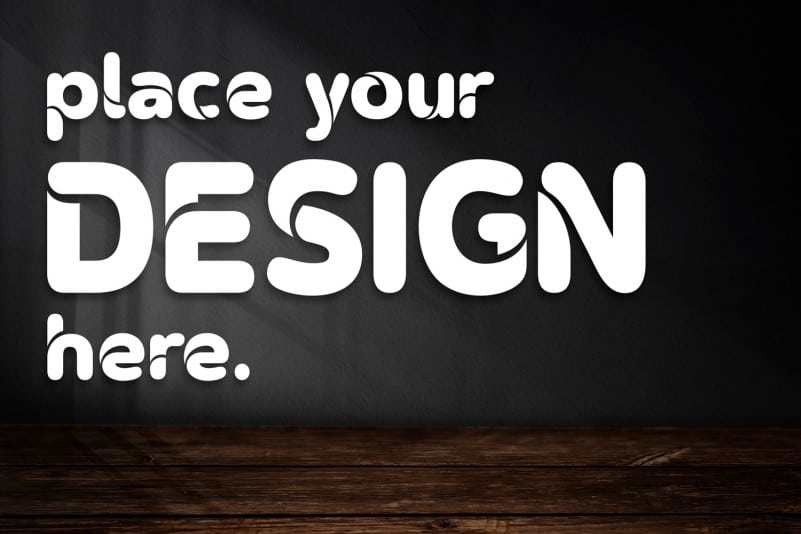
OMEGLE – Display Font
OMEGLE Font is made with great taste. It’s a modern futuristic font with a bold feel. It will add a contemporary update to any design project. It’s are very suitable to be placed on your project such as for weddings, printing, advertising, campaigns, posters, book titles, and so on.
177Studio